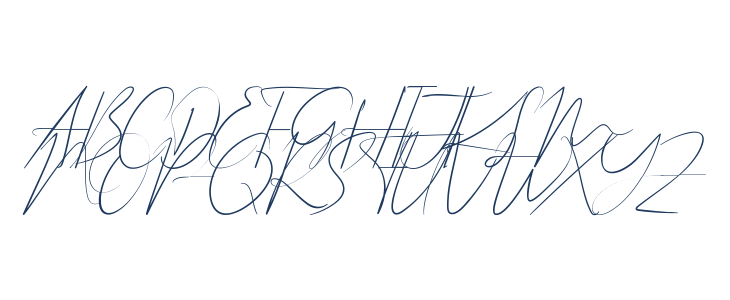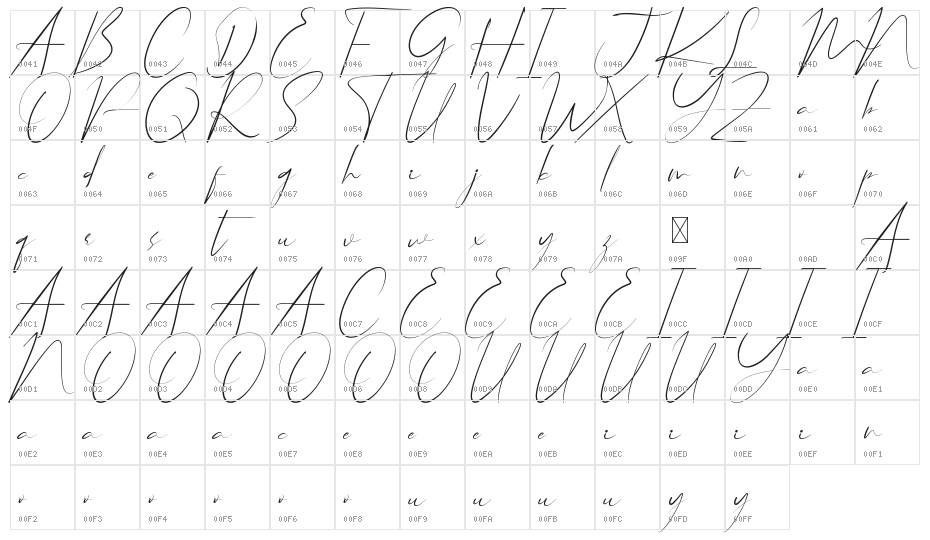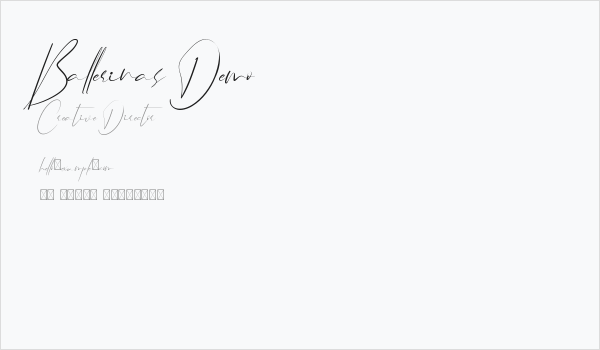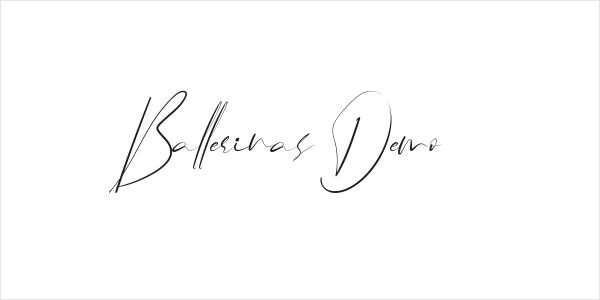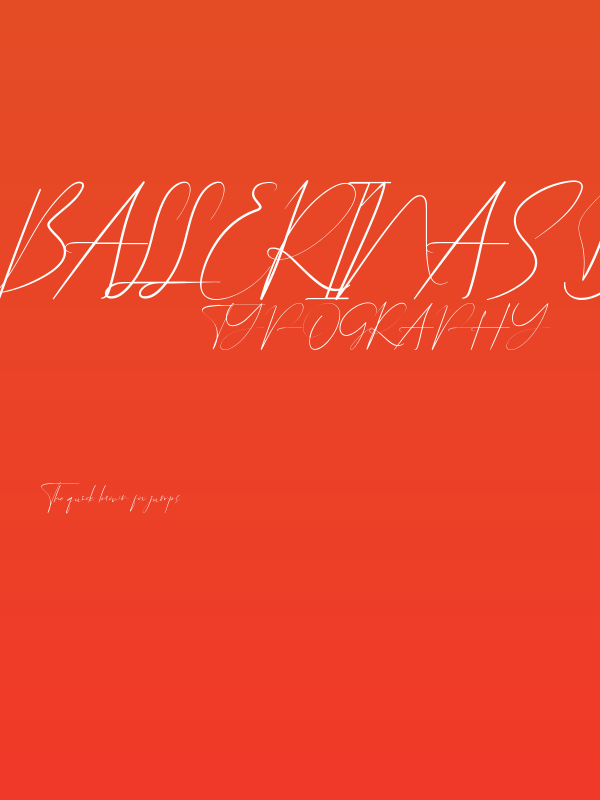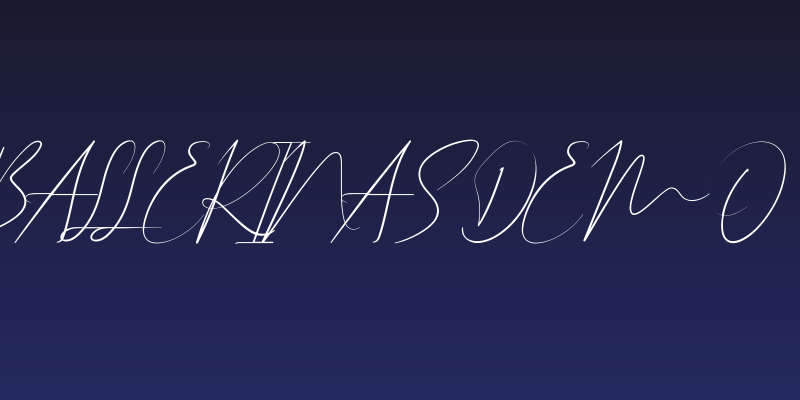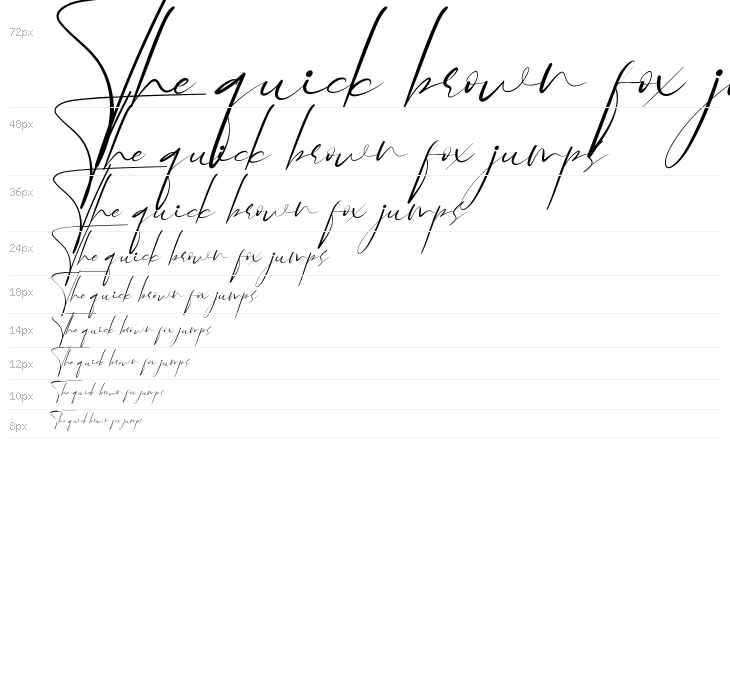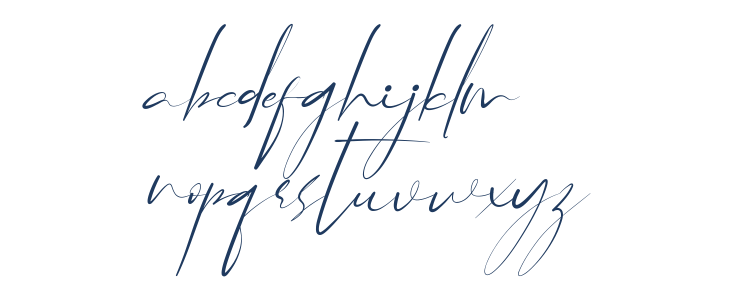
Ballerinas Demo Font
Ballerinas Demo Description
Elegant, flowing script with high contrast between thick and thin strokes, featuring exaggerated ascenders and descenders, and a handwritten, calligraphic appearance. The characters are loosely connected, with a delicate and airy feel.
| Overall Style | Decorative, Elegant, Handwritten |
| Use Case | Logos, Invitations, Headlines, Decorative text |
| Proposed Projects | Wedding invitations, elegant branding, personal stationery, event posters, artistic quotes. |